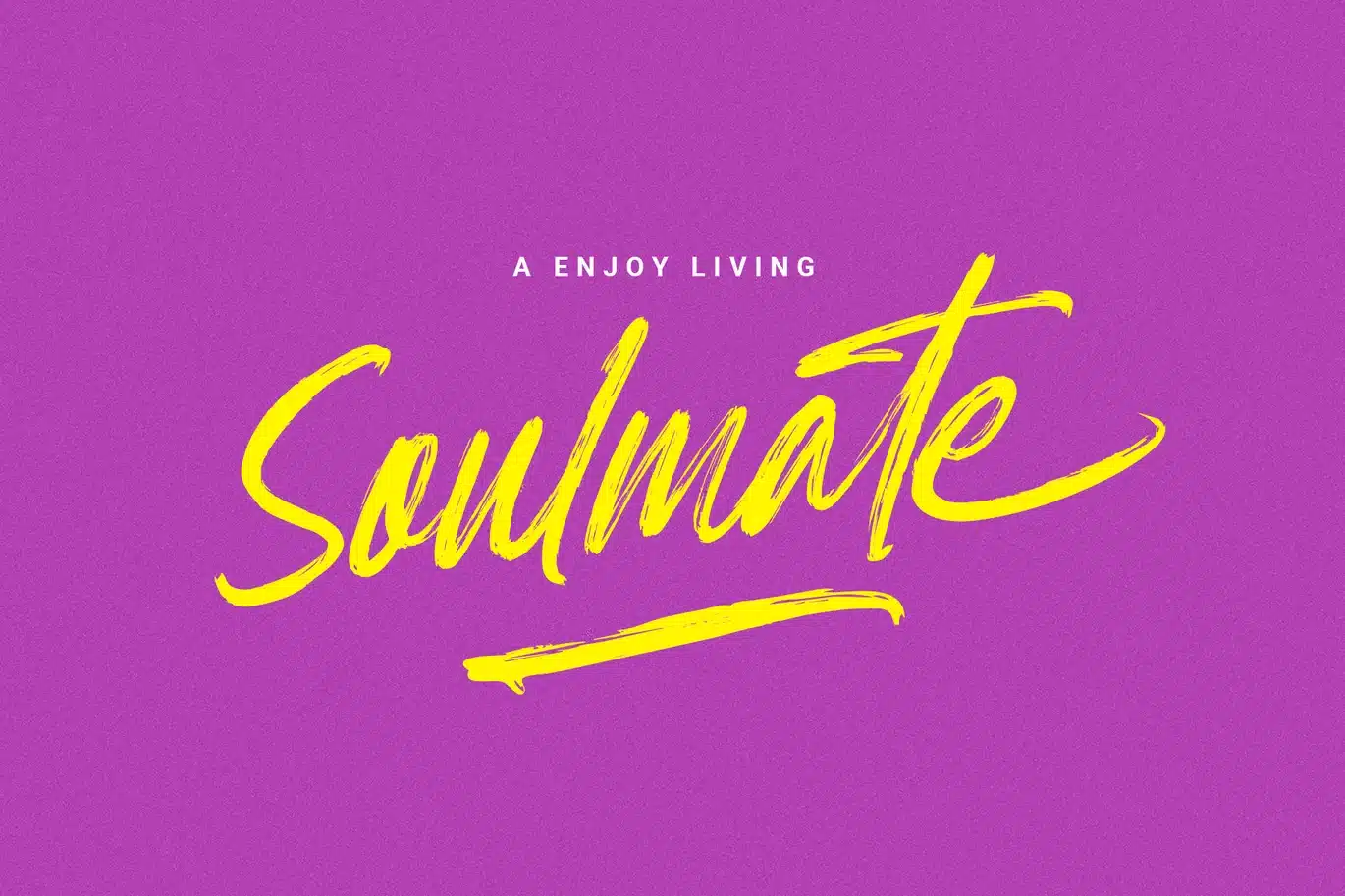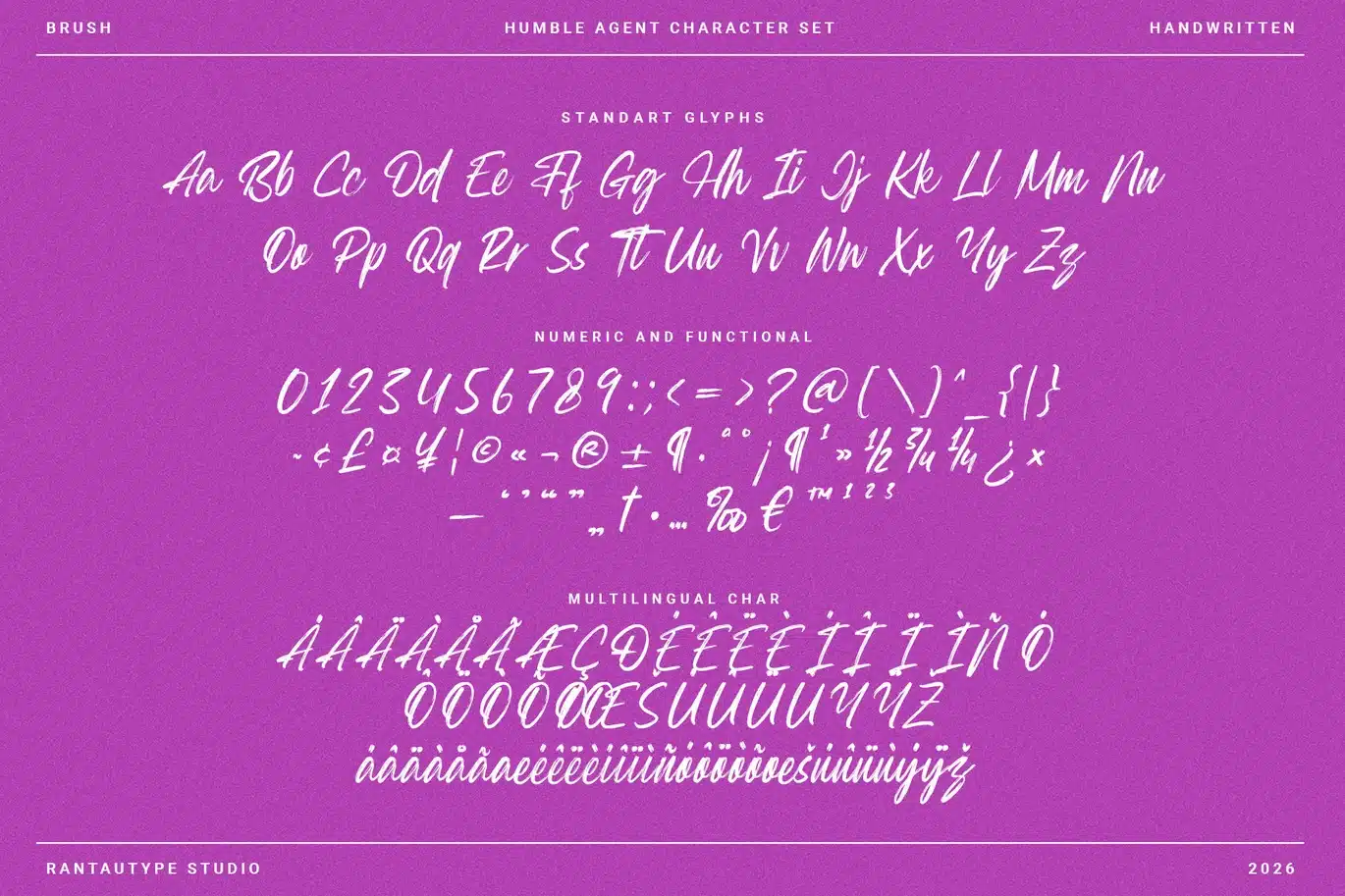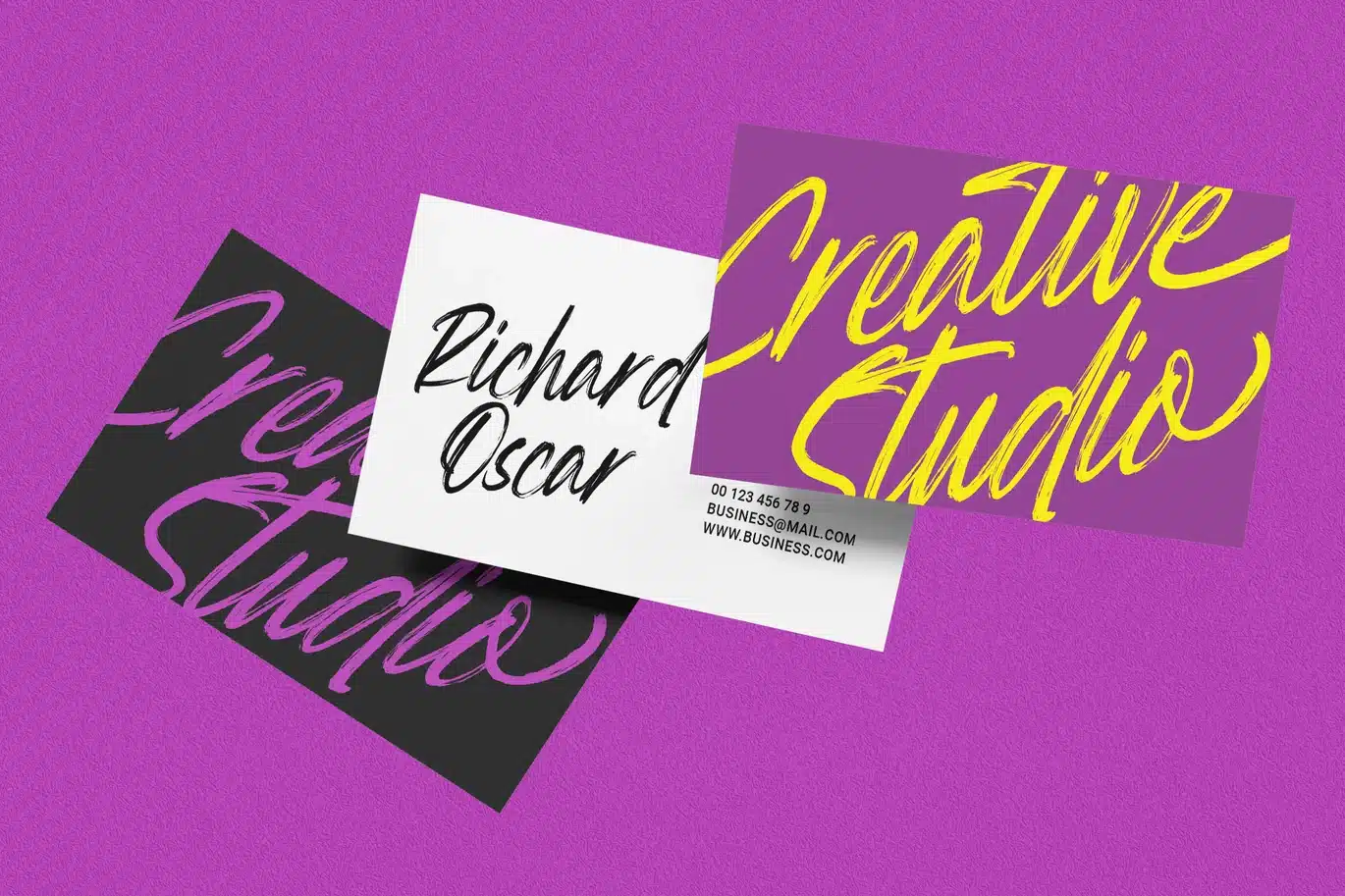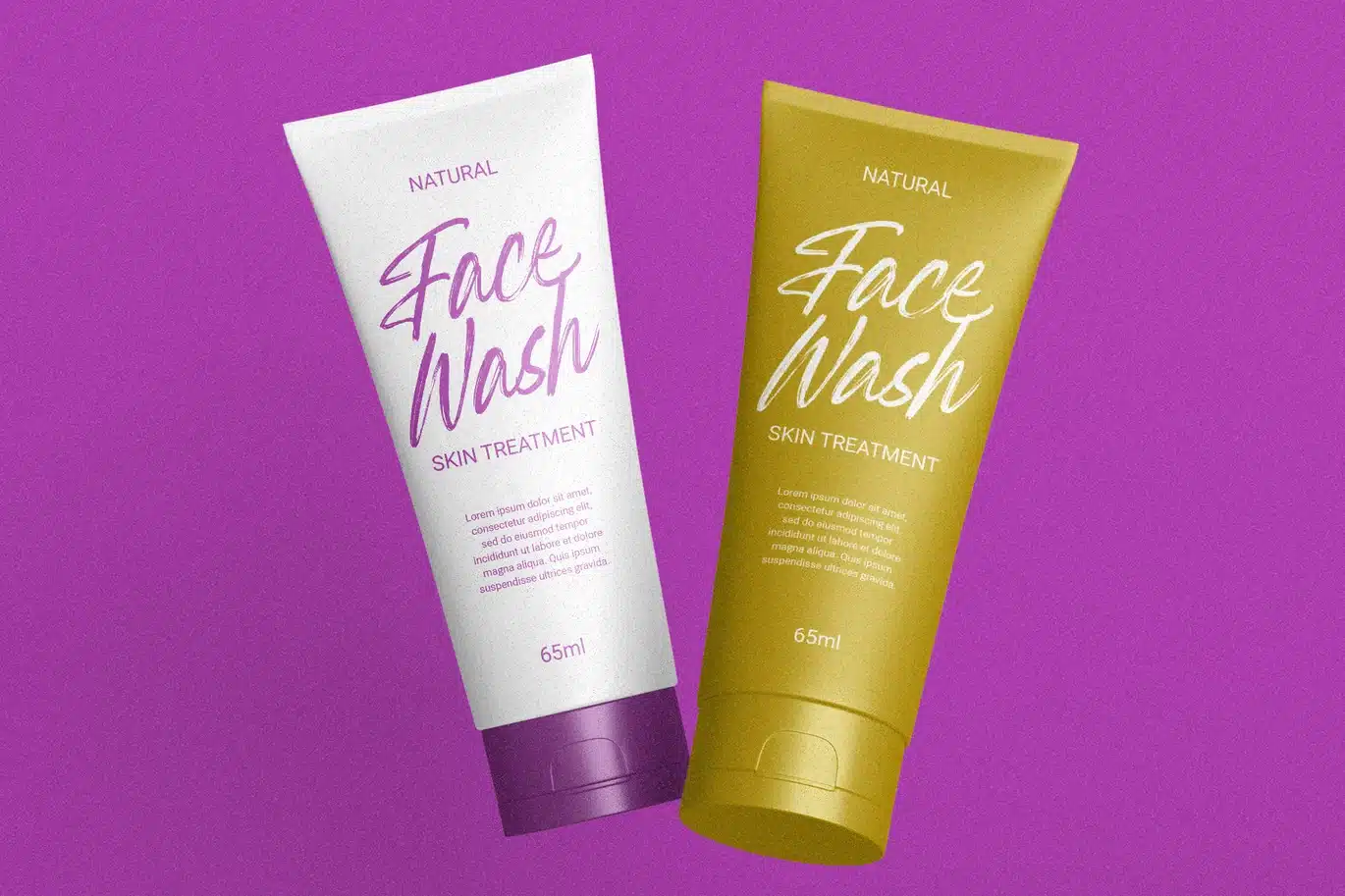
Humble Agent Brush Handwritten Font
Humble Agent is brush font made by rantautype studio. Humble agent come with urban vibes captures the raw rhythm of the streets and transforms it into expressive typography. Inspired by graffiti walls, late-night city lights, and the pulse of creative hustle, this style blends authenticity with attitude.
Humble Agent is a perfectly choice for any creative endeavor, creating, modern, lifestyle design such as logotype, title, cover, branding, invitations, wedding designs, display and magazine, social media posts, advertisements, printed quotes, product packaging, corporate brand, product designs, labels, photography, watermarks, special events and any other project with elegant touch.
- Standart Glyphs
- Numberial and Functional
- Alternate and Ligature
- Support Multilingual Character